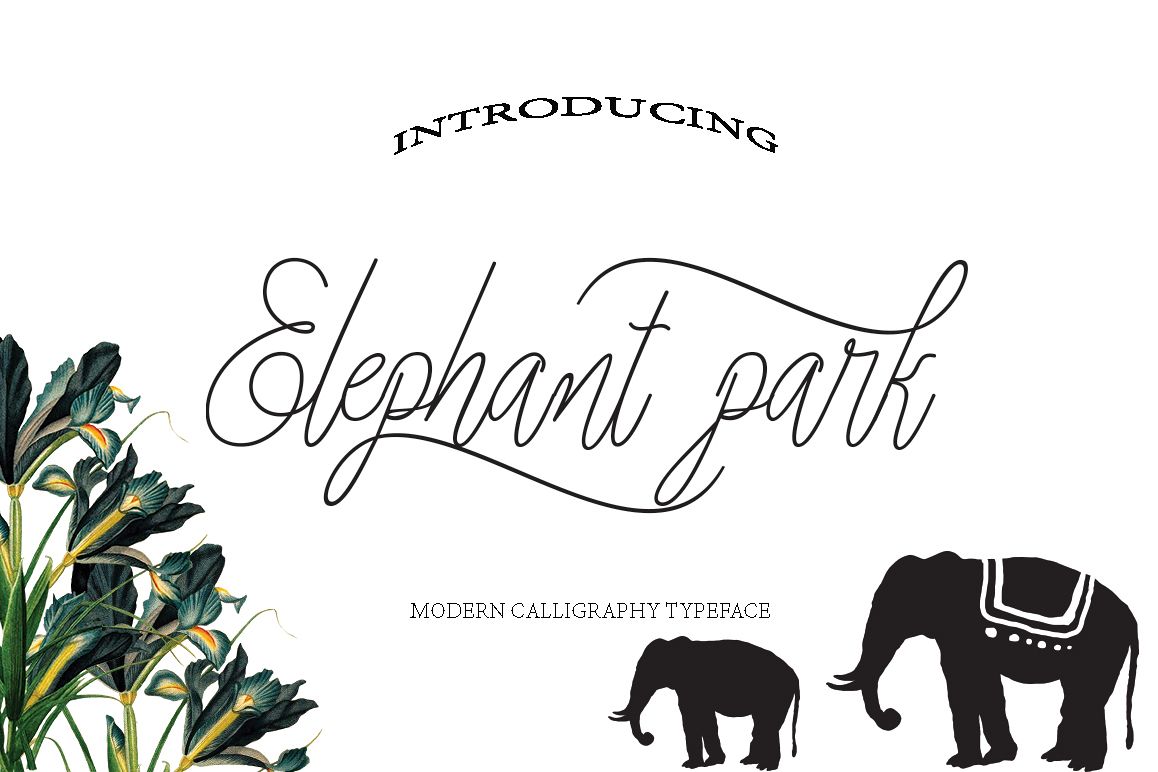
Elephant Park Font Duo
Elephant park
Elephant park is modern script font, every single letters have been carefully crafted to make your text looks beautiful. With modern script style this font will perfect for many different project ex: quotes, blog header, poster, wedding, branding, logo, fashion, apparel, letter, invitation, stationery, etc.FEATURE: